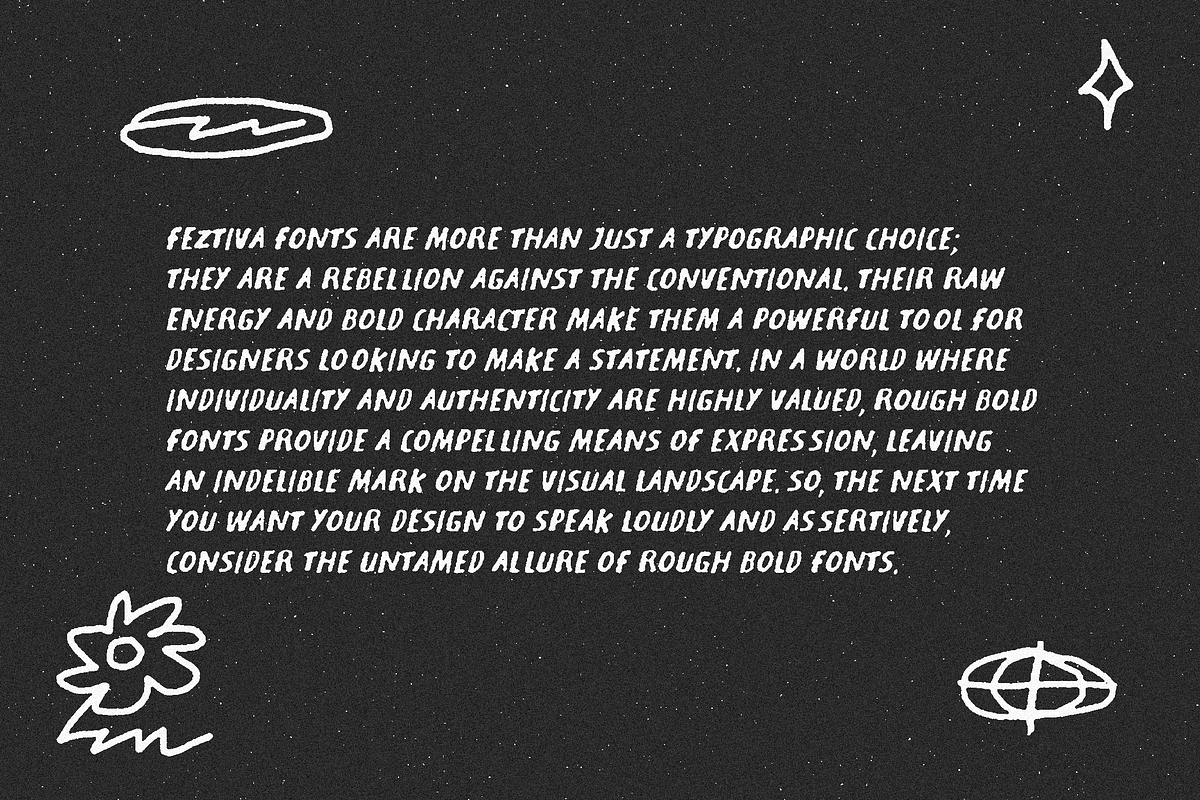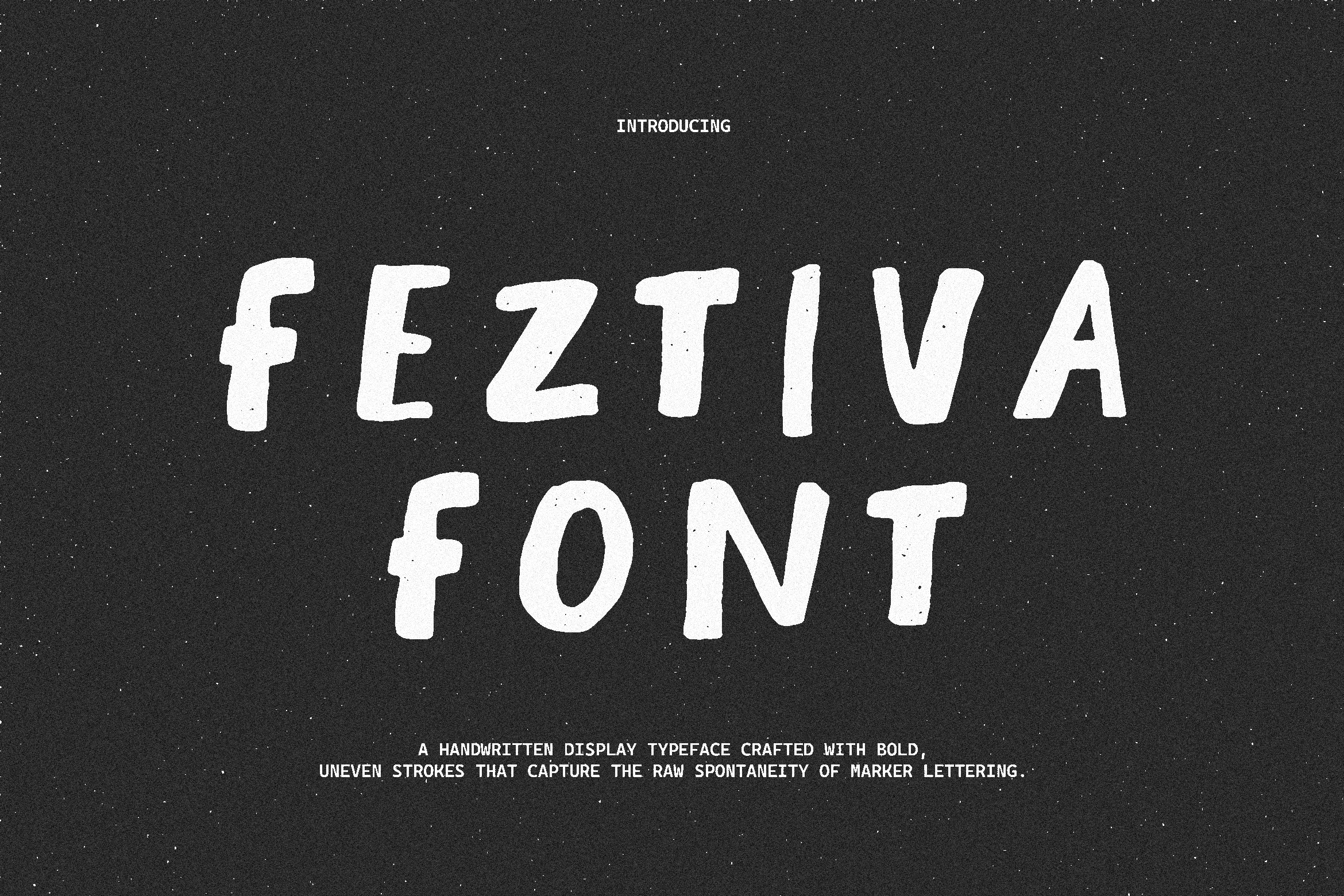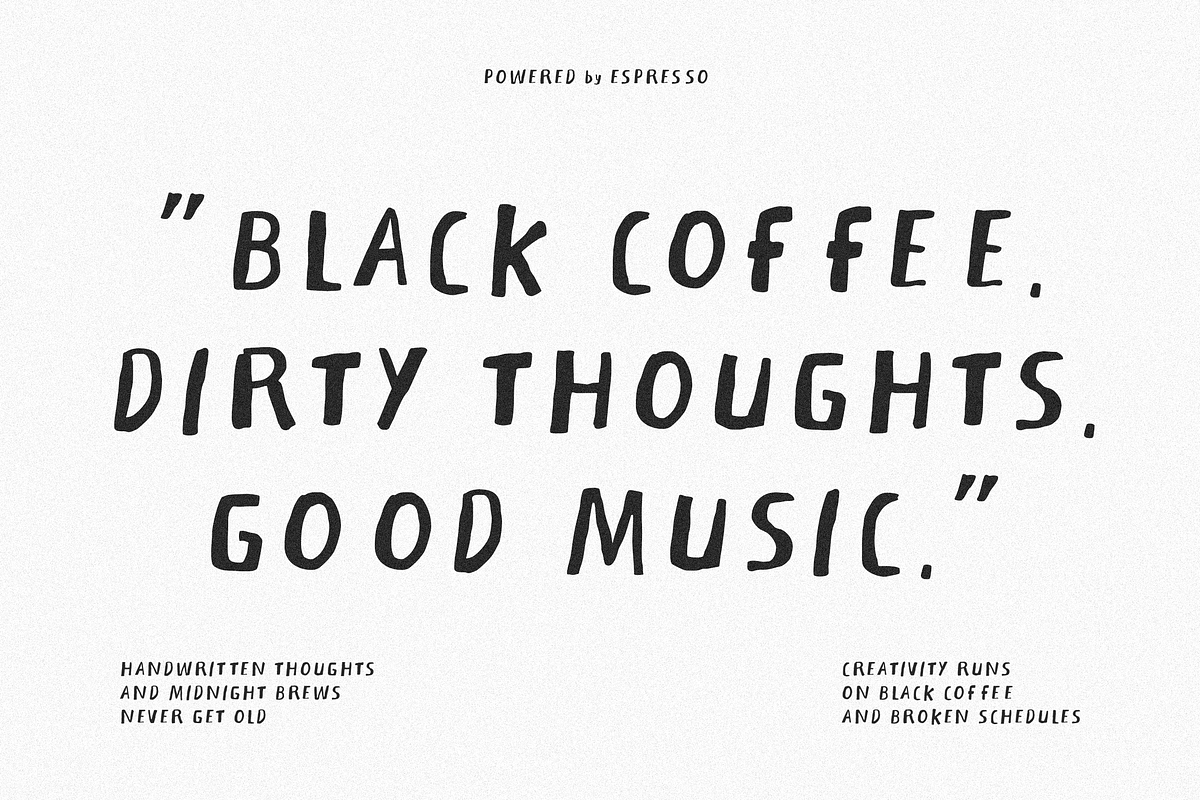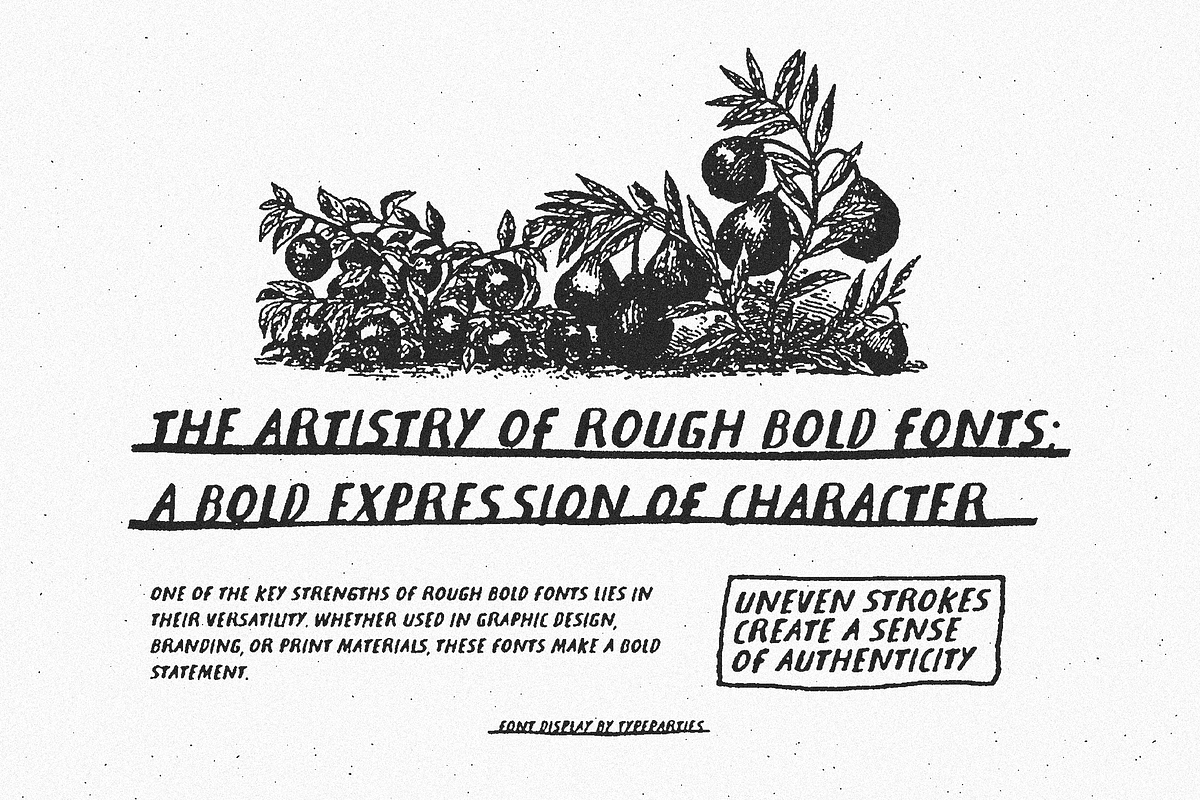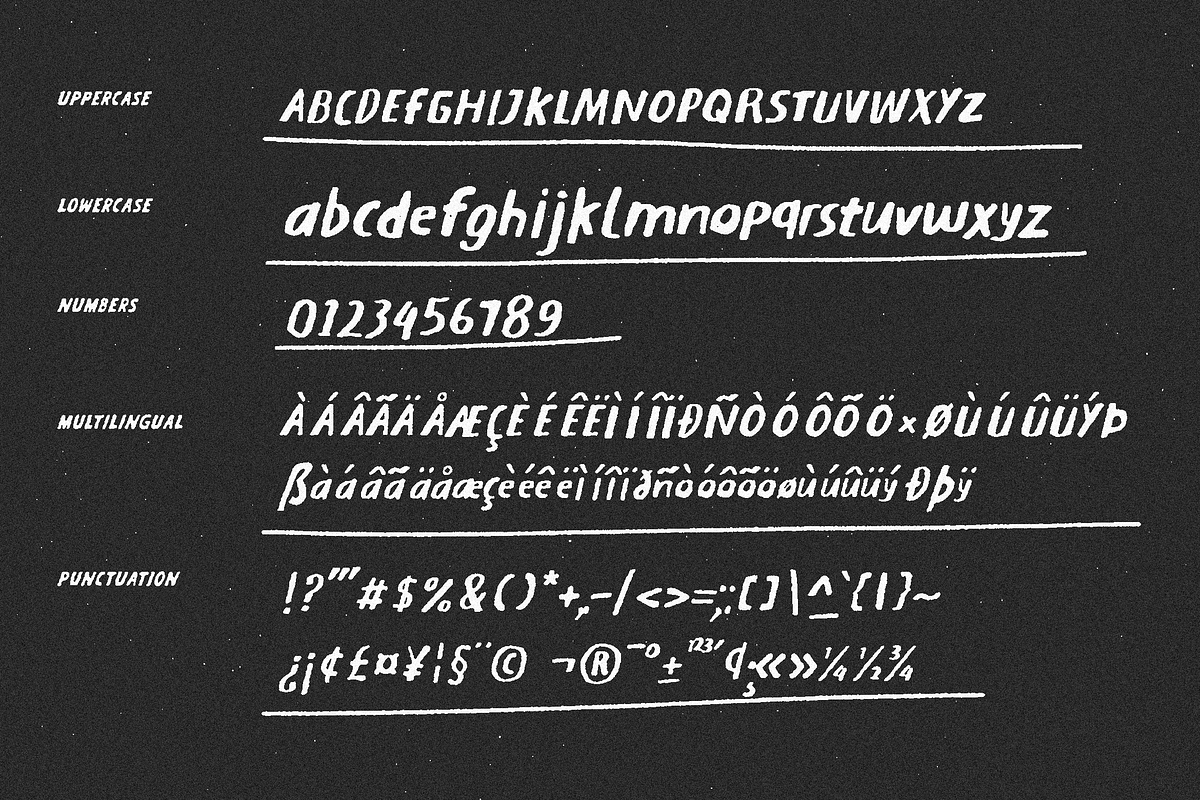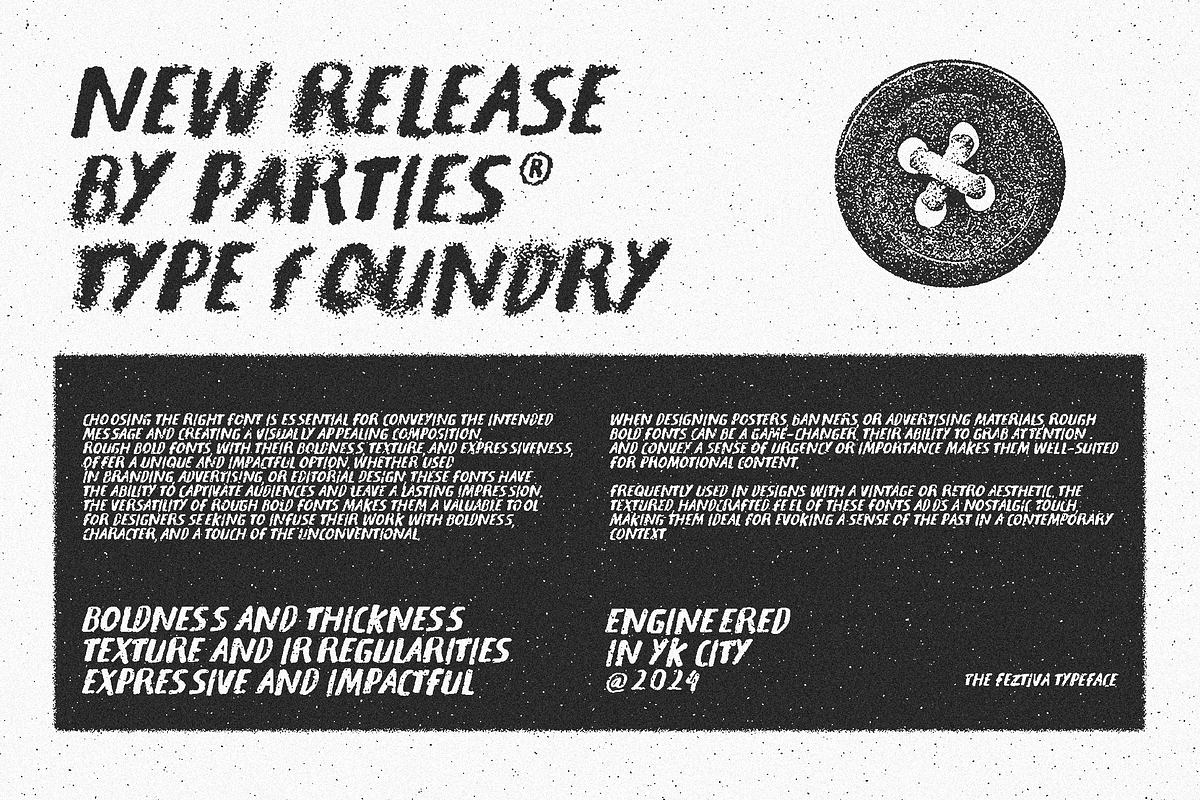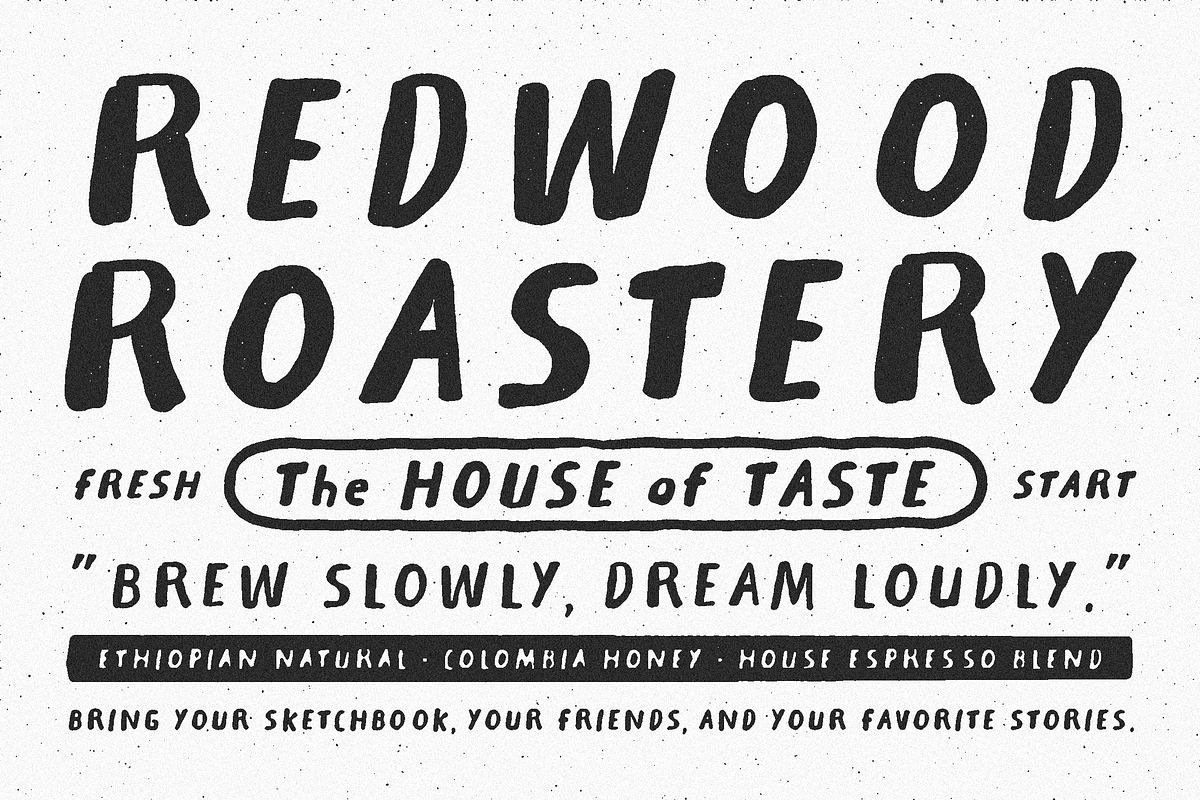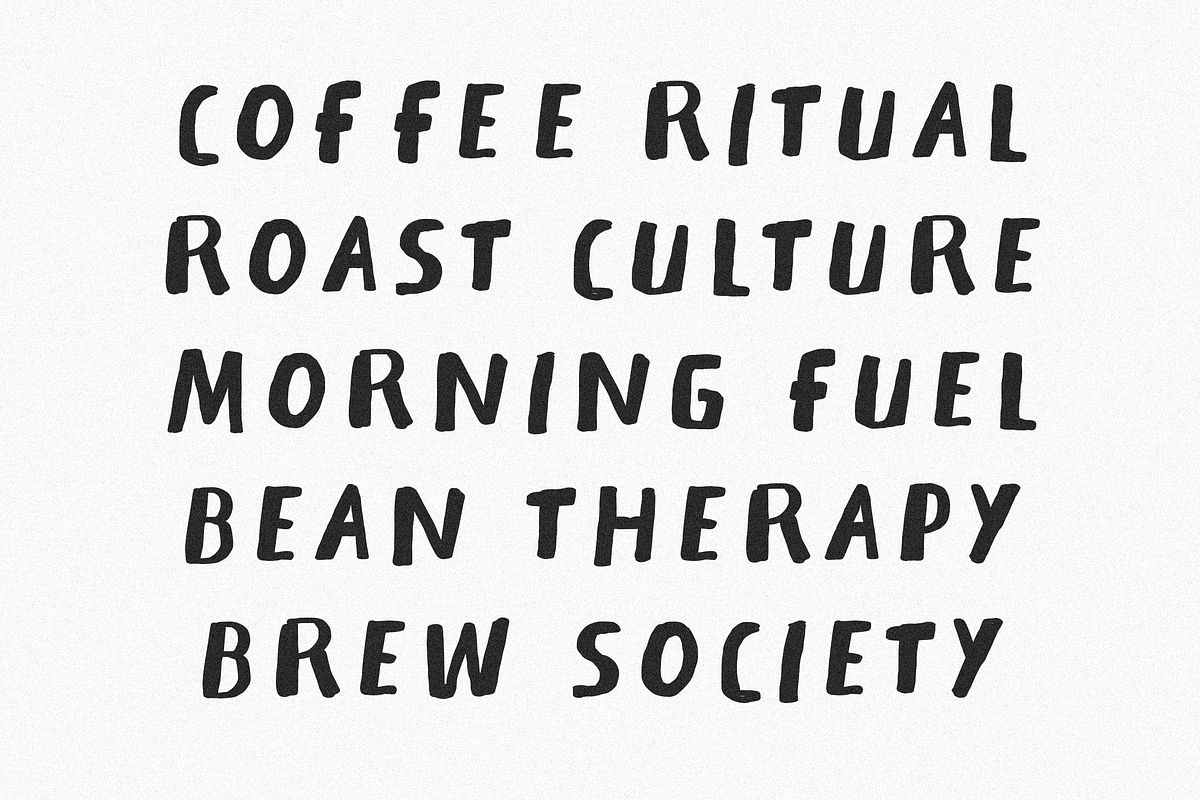
Feztiva - Handwritten Display Font
Feztiva is a bold handwritten display font inspired by raw marker lettering and spontaneous street notes. Built with uneven strokes and playful proportions, it delivers a handcrafted personality that feels expressive, approachable, and slightly rebellious. Every character embraces imperfections, creating an authentic human touch that works perfectly for posters, packaging, branding, music artwork, and creative editorial projects.
Designed to feel energetic and effortless, Feztiva captures the vibe of quick sketches, DIY culture, and vintage hand-painted signs. Its chunky forms and organic rhythm make headlines instantly memorable while maintaining excellent readability.
Lowercase
Numerics